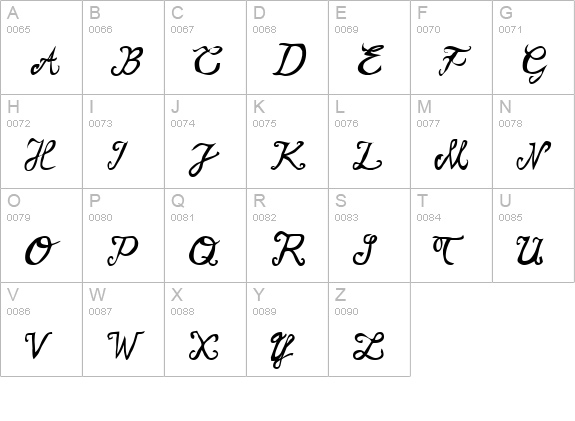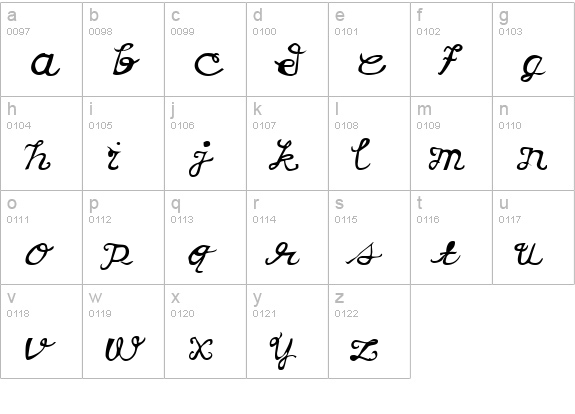
Introducing Korv font - a modern and stylish typeface that is sure to make your designs stand out! This versatile font is perfect for a wide range of projects, from branding to editorial design. With its clean lines and subtle curves, Korv font exudes sophistication and elegance. And the best part? Korv font is completely free to download at FontsMarket.com! This means you can add this beautiful font to your collection without breaking the bank. Whether you're a seasoned designer or just starting out, Korv font is a must-have addition to your toolkit. Don't miss out on the opportunity to enhance your projects with the sleek and contemporary style of Korv font. Download it for free today and take your designs to the next level!